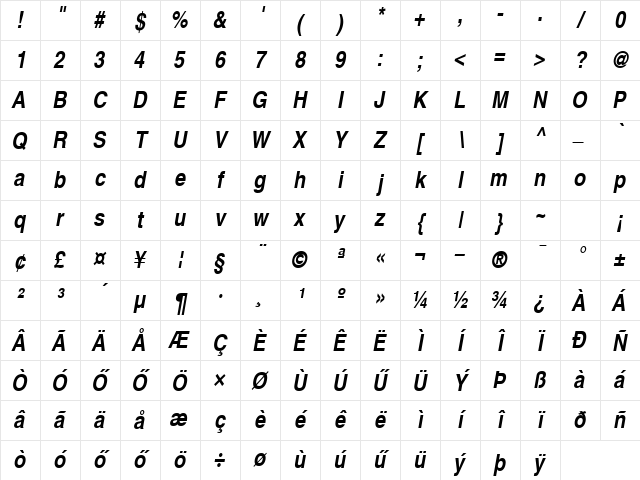
H_Helvetica Narrow BoldOblique
Style: BoldOblique
H_Helvetica Narrow Family
H_Helvetica Narrow BoldOblique
Design Context for H_Helvetica Narrow
H_Helvetica Narrow is a composed and adaptable typeface that performs quietly and consistently across a wide range of design contexts. The slanted form adds forward momentum and visual energy. Its bold stroke weight gives it real presence on the page. Its narrow stance lets it pack a punch even in space-constrained designs.
Pro Tip: Use H_Helvetica Narrow for emphasis, pull quotes, and subheadings where its slanted energy can add rhythm to the layout.